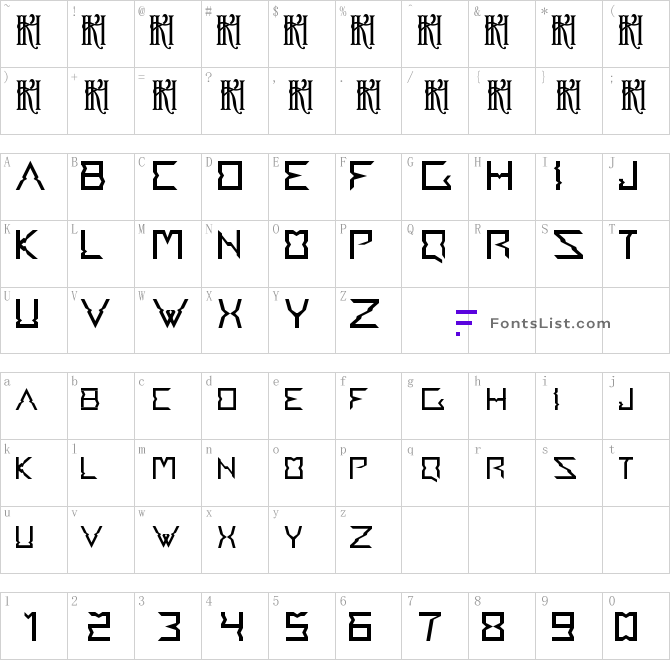
- Font Name:Accedent
Accedent-copy-1-.ttf is a very beautiful artistic font, Accedent-copy-1-.ttf is widely used in the design and printing of various books and pictures,Accedent-copy-1-.ttf has a strong visual impact,Accedent-copy-1-.ttf is a commonly used font in newspapers, magazines and books, and is used in posters, e-commerce Poster design, store design, logo design, font design and other fields.Accedent-copy-1-.